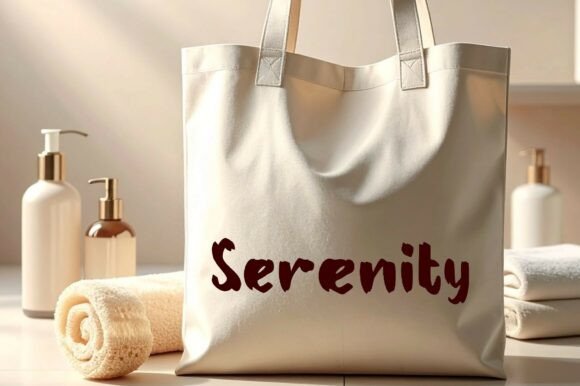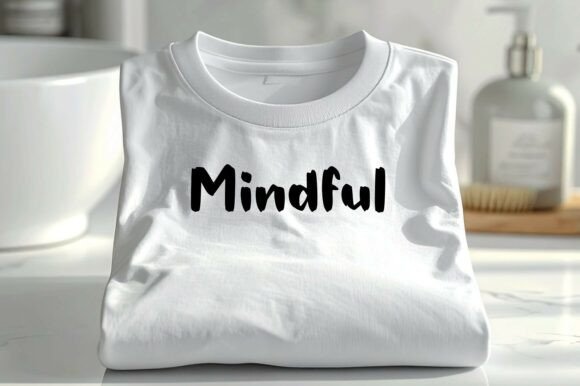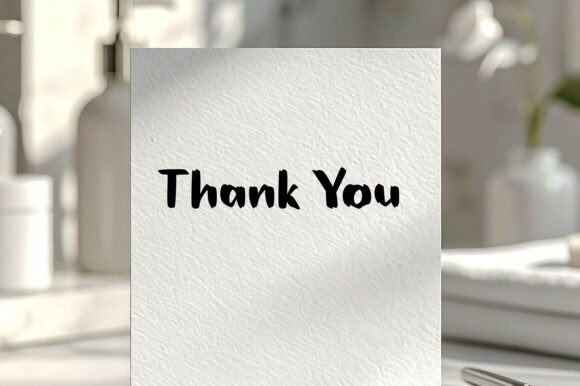
Unwrapping the Cozy Charm of Bath Towel Font
Who hasn’t had that moment where they stumble upon a font that instantly sparks a creative idea? Perhaps it was a late-night browsing session or a fleeting glance at a design blog. Whatever the case may be, it’s a feeling that’s hard to replicate – the thrill of discovering a font that perfectly captures the essence of your project. For me, that moment came when I stumbled upon the ‘Bath Towel’ font, a friendly and approachable chunky script typeface that exudes warmth and coziness.
Designed to evoke a sense of comfort and ease, the Bath Towel Font is a valuable addition to any designer’s toolkit. Its soft, rounded edges and slightly irregular, yet highly legible, handwritten style make it an excellent choice for projects that aim to convey a sense of relaxation and personal care. Whether you’re designing branding for wellness products or home goods, this font is sure to bring a touch of warmth and personality to your designs.
• Unique Characteristics: The Bath Towel Font features a distressed, vintage aesthetic with a subtle texture, giving it a unique and eye-catching appearance.
Bath Towel Font Review
Overall, I think Bath Towel Font has some great qualities, but also some areas where it falls short. ✨
• The font’s playful and whimsical feel is perfect for a bathroom setting.
• The various towel-themed illustrations and graphics add a fun touch to the design.
• The font is highly customizable, allowing designers to adjust the size, color, and style to fit their needs.
• The font may be too busy or overwhelming for some designs, especially those with a lot of text.
• The illustrations and graphics can be a bit too cartoonish for more serious or minimalist designs.
• The font may not be suitable for all languages or character sets, which could be a limitation for designers working on international projects.
Overall, I think Bath Towel Font is a great choice for bathroom-themed designs, but it may not be the best fit for every project. With some careful consideration and customization, it can add a fun and playful touch to your designs.
The Bath Towel Font is perfect for creating a playful, retro vibe in your designs. Use it for:
– Social media posts and ads
– Flyers and brochures
– Presentation slides
– Blog posts and articles
Tips for Getting the Most Out of Bath Towel Font
– Use it in combination with bold, bright colors to create a visually appealing design.
– Experiment with different font sizes and styles to add emphasis to your text.
– Use the Bath Towel Font for headings and subheadings to create a clear hierarchy of information.
Alternatives to Bath Towel Font
Great Vibes Font is a modern script font that can be used for casual and creative designs. It has a more elegant and refined look compared to Bath Towel Font, making it suitable for wedding invitations, event branding, and lifestyle magazines. It has a more uniform and flowing feel, but still maintains a playful and friendly tone.
Crimson Text Font is a serif font that is designed for body text, but can also be used for headings and titles. It has a more classic and timeless look compared to Bath Towel Font, making it suitable for books, magazines, and websites that require a professional and elegant tone. It has a more formal and structured feel, but still maintains a sense of sophistication.